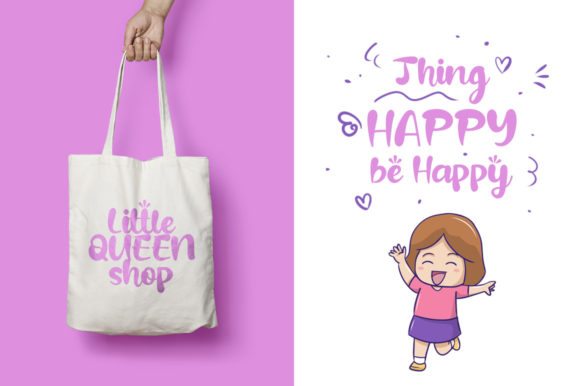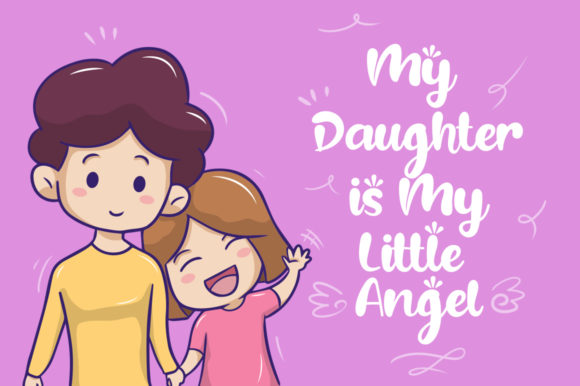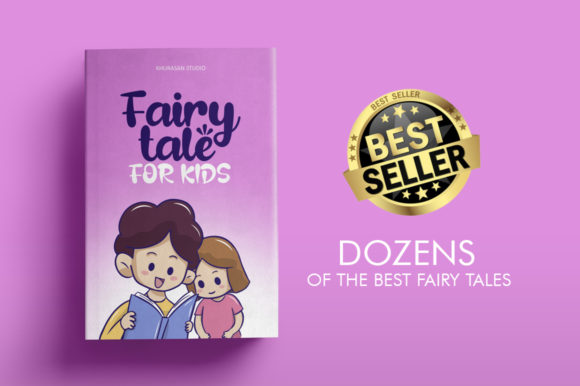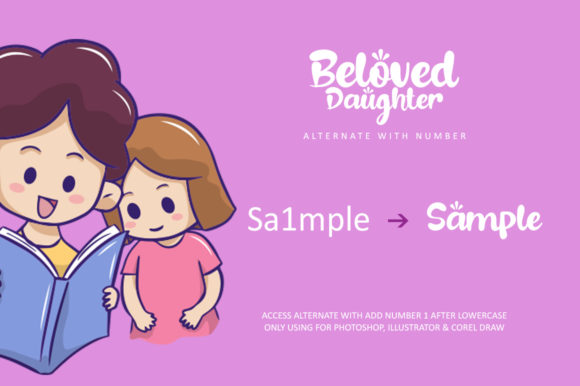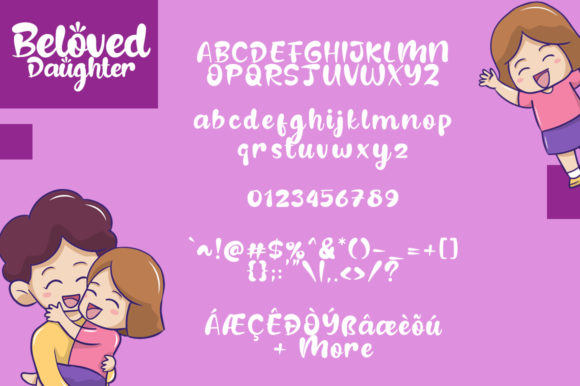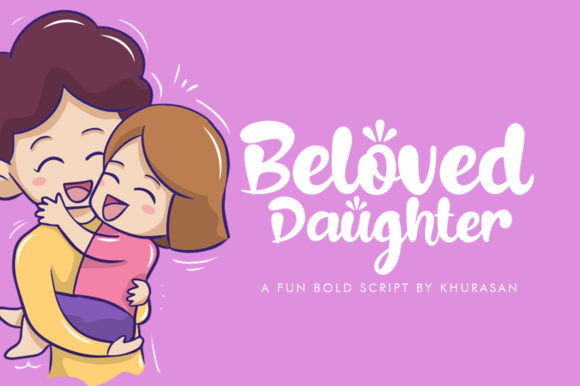
Introducing Beloved Daughter Font: A Joyful Handwritten Delight
Are you a designer, crafter, or DIY enthusiast looking for a font that exudes warmth, elegance, and playfulness? Look no further than the Beloved Daughter Font, a stunning handwritten font that is sure to capture your heart. With its unique blend of sophistication and charm, this font is perfect for a wide range of creative projects, from wedding invitations and branding materials to craft tutorials and social media graphics.
The Story Behind Beloved Daughter Font
Beloved Daughter Font is a beautiful handwritten font designed to evoke a sense of joy and whimsy. Its elegant, yet adorable charm makes it perfect for designers and crafters who want to add a personal touch to their work. The font’s creator aimed to craft a typeface that would be both refined and approachable, making it suitable for a variety of applications, from formal events to casual, handmade projects.
What Makes Beloved Daughter Font So Special?
So, what sets Beloved Daughter Font apart from other fonts? Here are just a few reasons why this font has become a favorite among designers and crafters:
- Unique Character: Beloved Daughter Font boasts a distinctive, handwritten style that is both elegant and playful. Its characters are carefully crafted to convey a sense of warmth and personality.
- Highly Versatile: Whether you’re working on a wedding invitation, a craft tutorial, or a social media graphic, Beloved Daughter Font is the perfect choice. Its versatility makes it suitable for a wide range of projects and applications.
- Easy to Read: Despite its elegant, cursive style, Beloved Daughter Font is remarkably easy to read, making it perfect for both digital and print applications.
- Extensive Language Support: This font comes with extensive language support, ensuring that you can use it for projects in multiple languages.
Using Beloved Daughter Font in Your Projects
- Pair it with Other Fonts: Beloved Daughter Font pairs beautifully with other fonts, including sans-serif and serif typefaces. Experiment with different combinations to find the perfect look for your project.
- Use it for Headings and Titles: This font is perfect for headings and titles, where its elegant, cursive style can really shine.
- Add a Personal Touch: Use Beloved Daughter Font to add a personal touch to your projects, whether you’re creating wedding invitations, branding materials, or social media graphics.
Design and Craft Inspiration
Beloved Daughter Font is the perfect choice for designers and crafters who want to add a touch of elegance and whimsy to their work. Here are a few ideas for using this font in your creative projects:
- Wedding Invitations: Use Beloved Daughter Font to create beautiful, one-of-a-kind wedding invitations that reflect the couple’s personality and style.
- Branding Materials: This font is perfect for branding materials, such as logos, business cards, and letterheads, where its elegant style can help establish a professional, yet approachable tone.
- Craft Tutorials: Add a personal touch to your craft tutorials with Beloved Daughter Font, perfect for creating handmade projects, such as knitting patterns, sewing tutorials, and more.
In conclusion, Beloved Daughter Font is a beautiful, handwritten font that is sure to capture your heart. With its elegant, yet adorable charm, this font is perfect for designers and crafters who want to add a personal touch to their work. Whether you’re working on a wedding invitation, branding materials, or a craft tutorial, Beloved Daughter Font is the perfect choice. So why wait? Fall in love with this joyful font and take your creative projects to the next level!